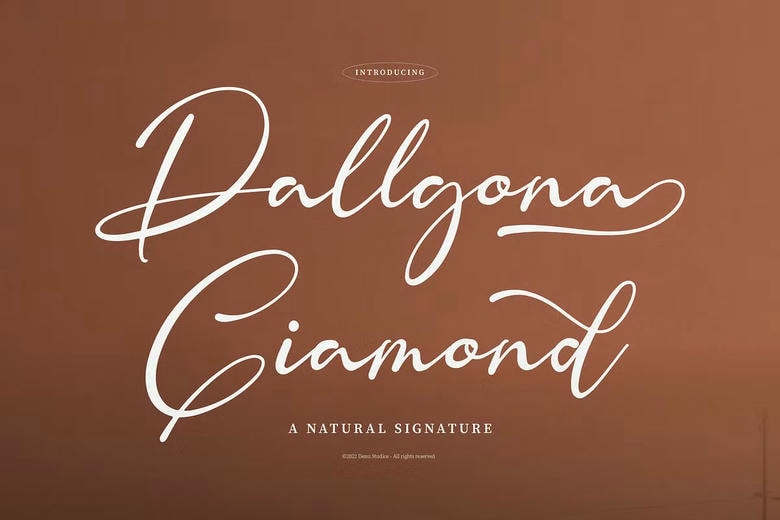
Dallgona Giamond Font
Dallgona Giamond | Natural Signature, to be used on your logo designs, branding project, home wares, packaging, mugs, quote, poster, bags, t-shirts, book cover, name card, invitation cards, greeting cards, label, photographs, watermark, event and any of your lovely project that need Natural Signature.
Dallgona Giamond Handwritten Font